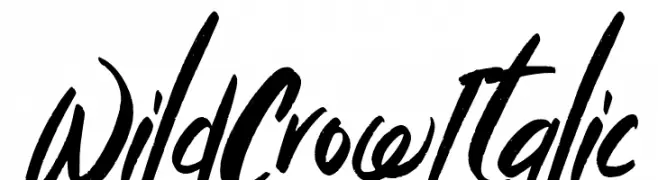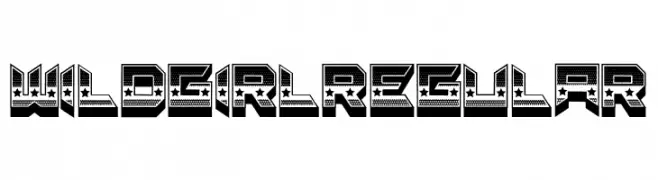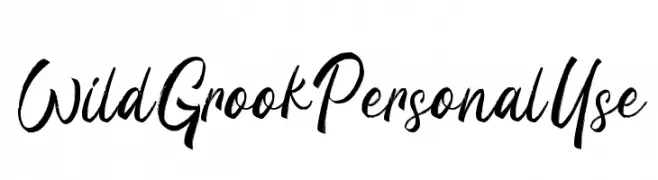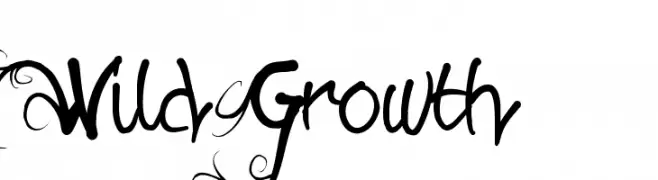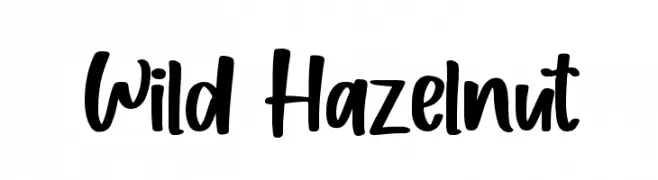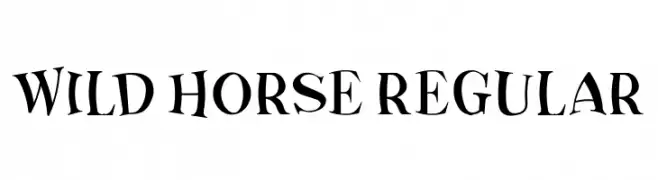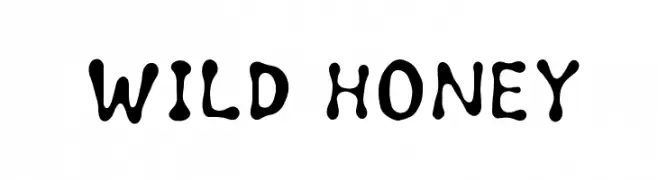
A bold, italic, and expressive font with dynamic strokes and close spacing.
A bold, decorative font with a 3D effect and star embellishments.
A dynamic handwritten font with fluid, expressive strokes.
A dynamic, expressive font with flowing lines and intricate swirls.
A bold, handwritten font with a playful and energetic style.
A playful, hand-drawn font with rounded, irregular edges and a whimsical style.
A dynamic and playful font with varying stroke widths and a whimsical style.
A bold, hand-drawn font with a rugged, adventurous style and distressed texture.